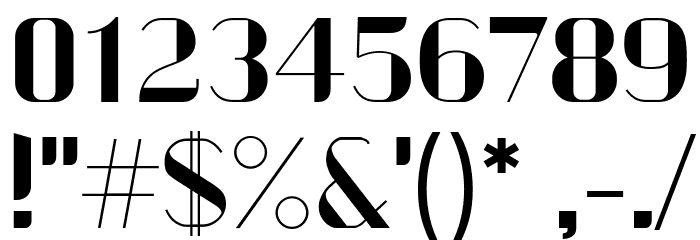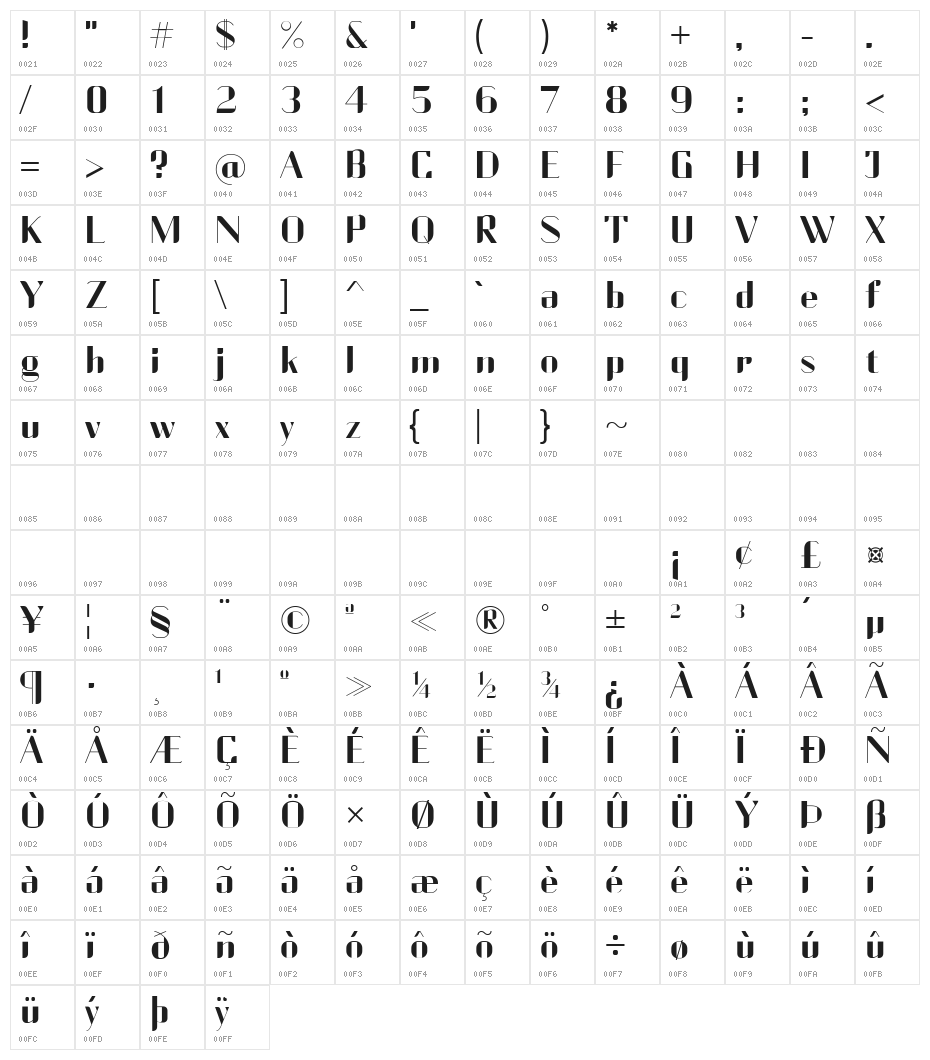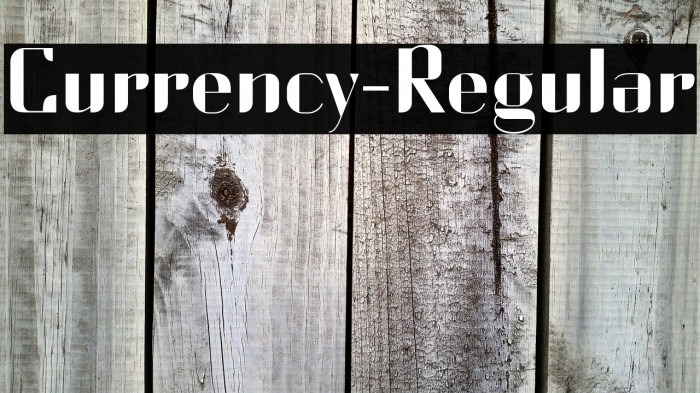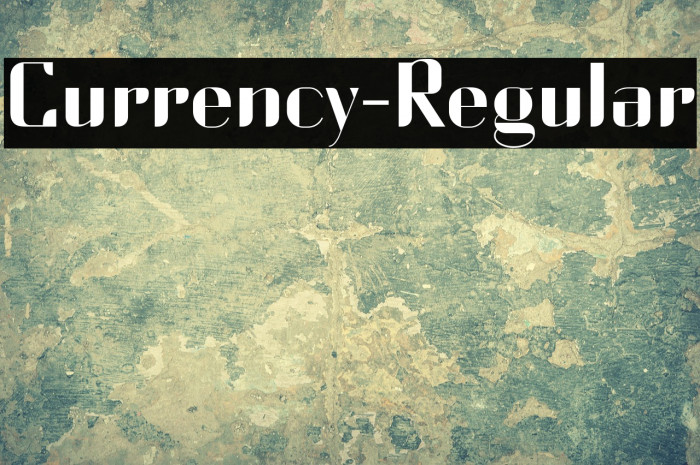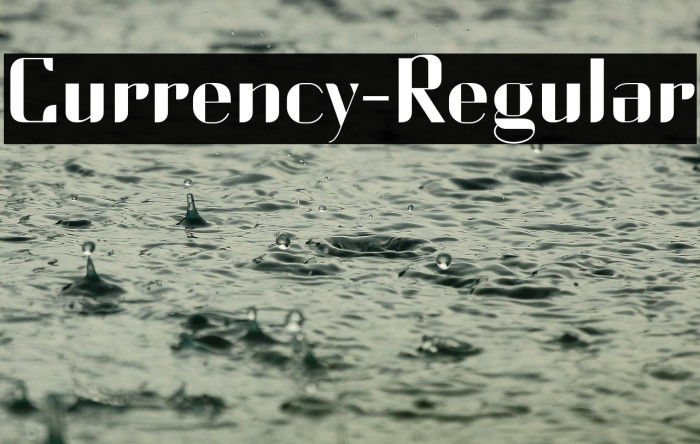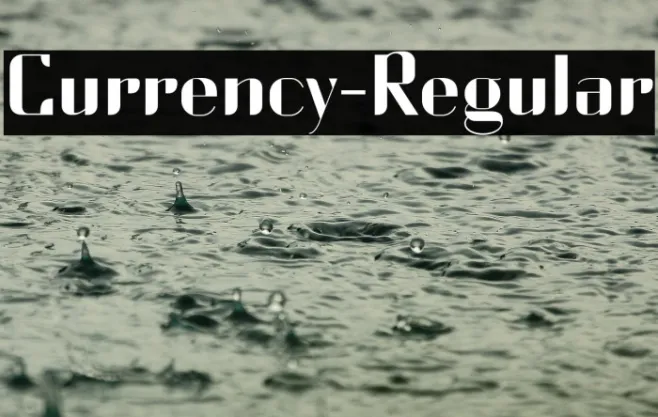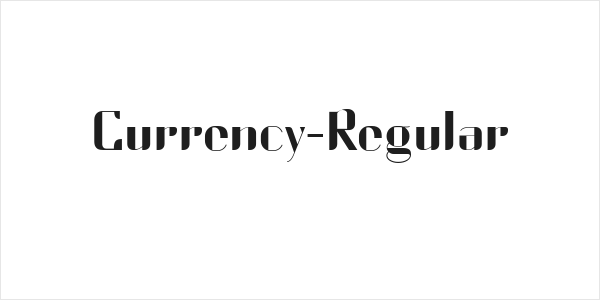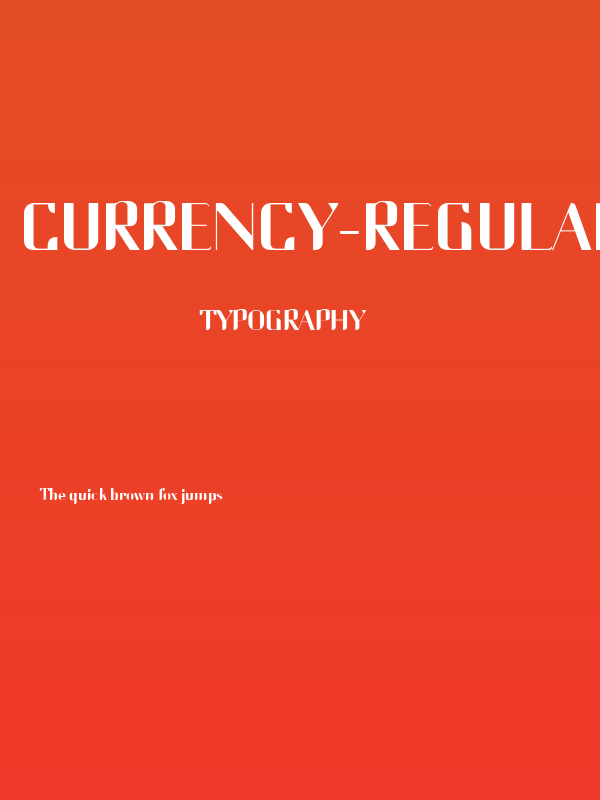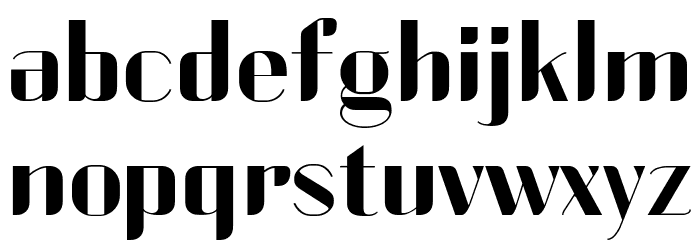
Currency-Regular Font
Currency-Regular Description
This font features a modern and sophisticated design with a high contrast between thick and thin strokes, creating a dynamic and elegant appearance. The uppercase letters are bold and striking, while the lowercase letters maintain a consistent style with a slightly more delicate touch. The numerals are clear and easy to read, complementing the overall aesthetic. Special characters are uniquely styled, adding to the font's versatility. The design is suitable for projects that require a contemporary and stylish look, making it ideal for branding, advertising, and editorial design.
| Use Case | Headlines, Logos, Branding |
| Proposed Projects | Ideal for branding, advertising, editorial design, and luxury product packaging. |